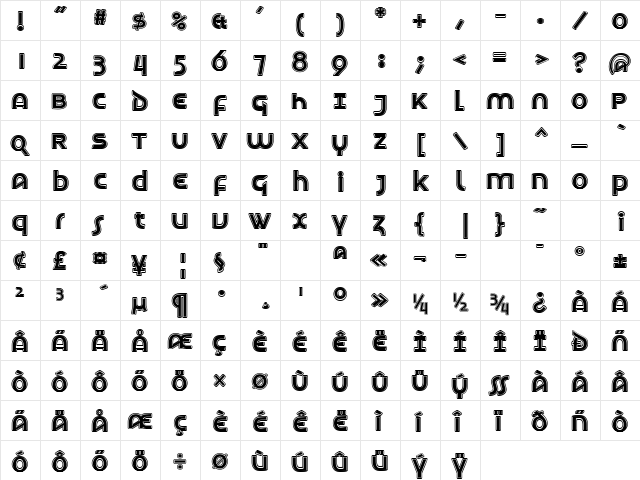
LetunicalInline Regular Font Preview
LetunicalInline Regular
Design Context for LetunicalInline Typeface
LetunicalInline brings ornamental detail and strong personality to headlines and identities, where visual impact matters more than quiet functionality.
Font Pairing: Pair with a clean neutral sans-serif for body copy to let LetunicalInline's character lead without overwhelming the composition.
Pro Tip: Treat LetunicalInline as the centrepiece of your typographic hierarchy. One strong heading set in a decorative face can carry an entire layout.